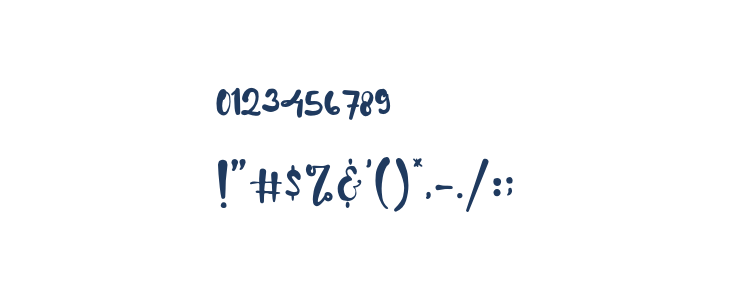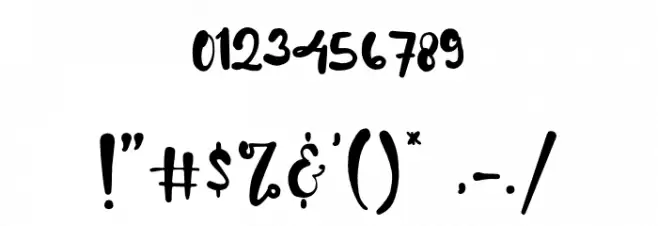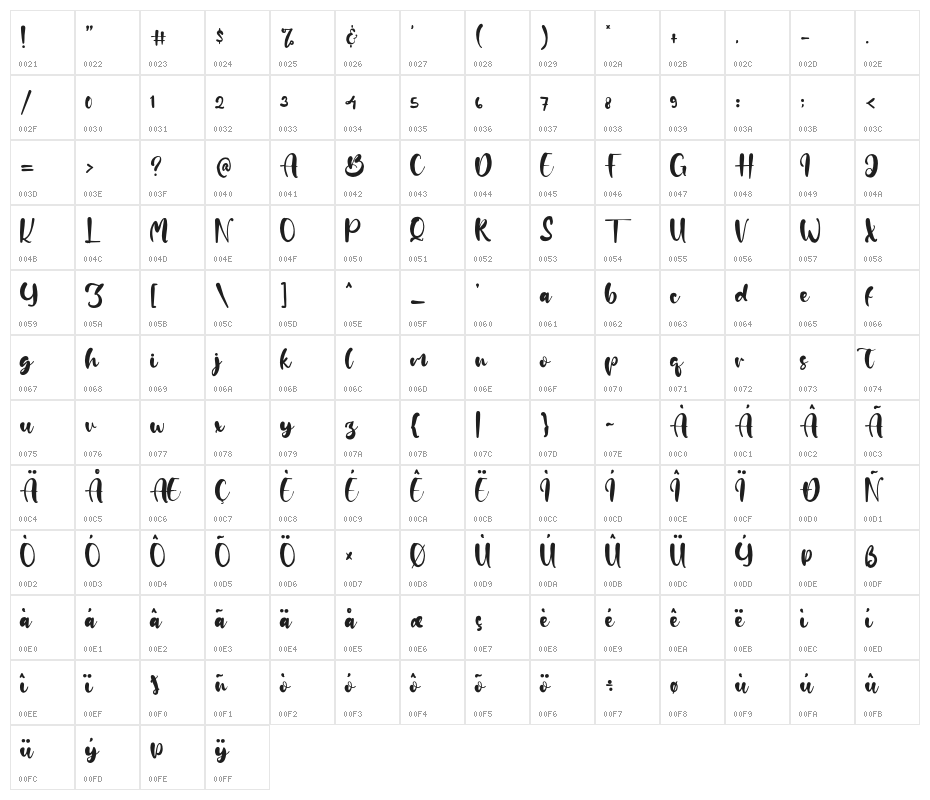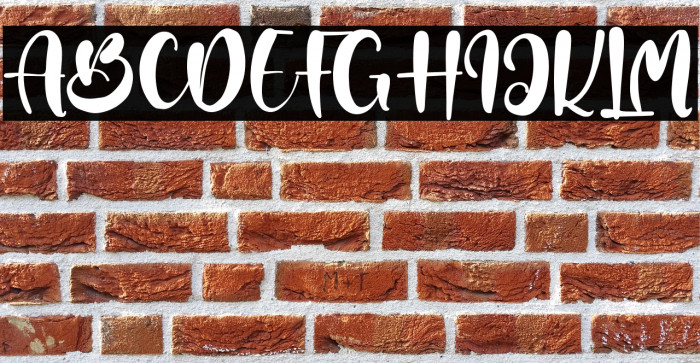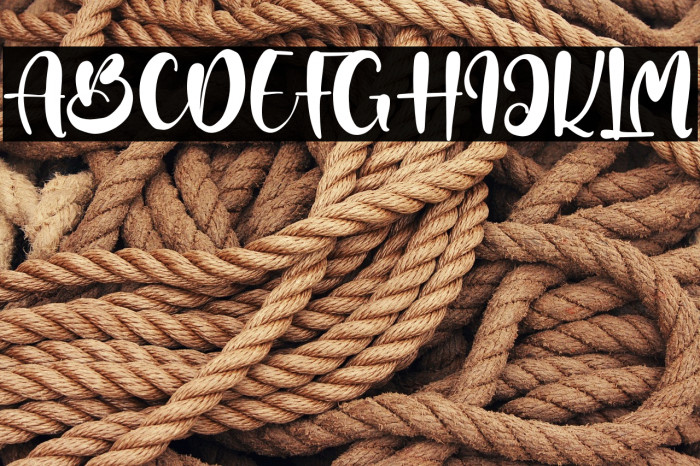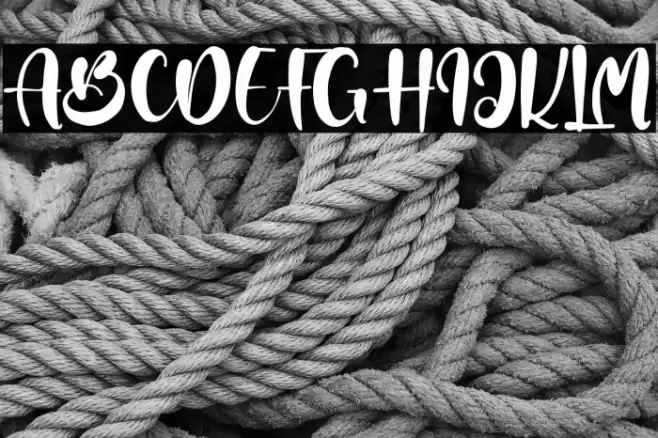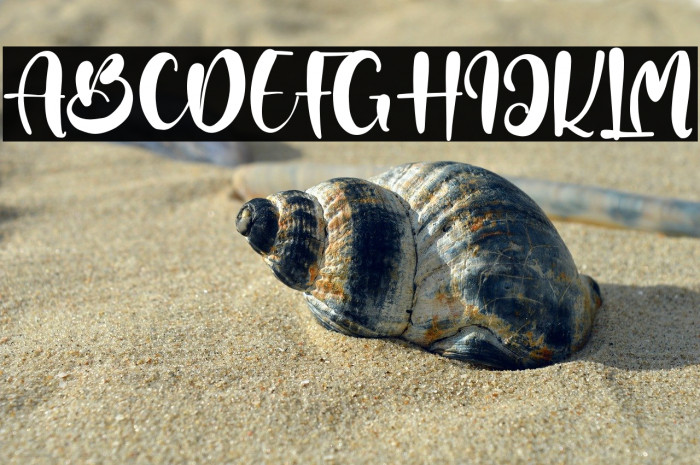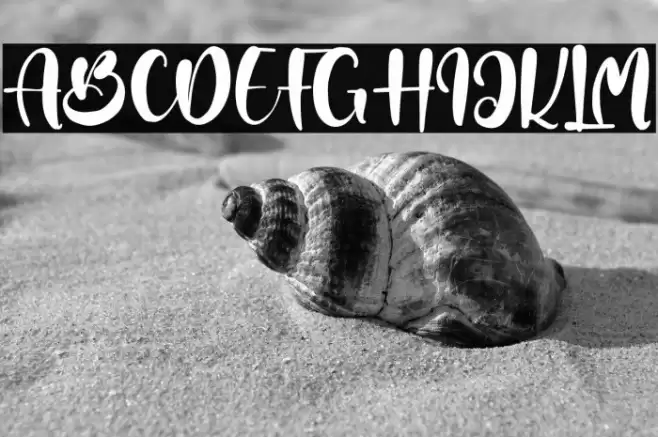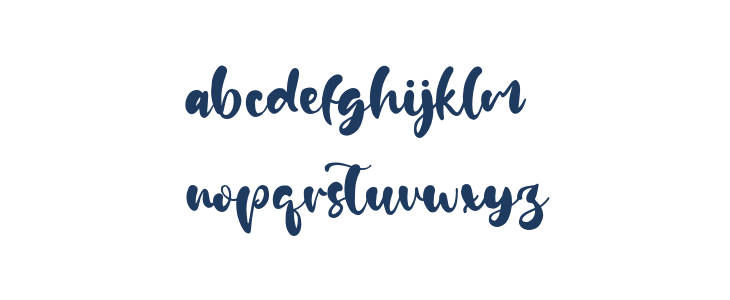
DorisDebra Font
DorisDebra Description
This font exudes a playful and artistic flair, characterized by its bold and flowing script style. The uppercase letters are particularly striking, with exaggerated loops and curves that give a sense of movement and energy. The lowercase letters maintain this fluidity, offering a harmonious balance between elegance and readability. Numbers and special characters are designed with the same attention to detail, ensuring consistency across all elements. The overall appearance is both dynamic and approachable, making it suitable for a variety of creative applications.